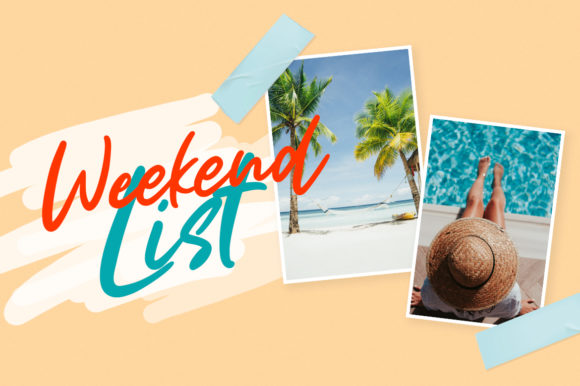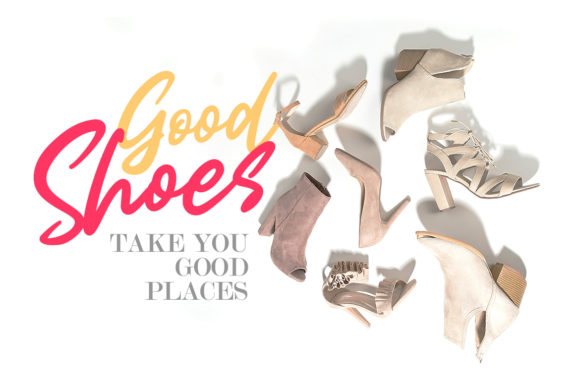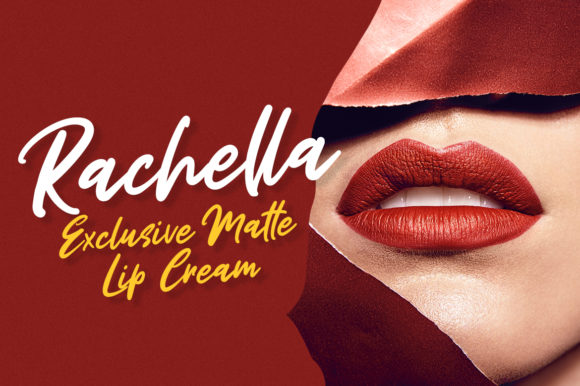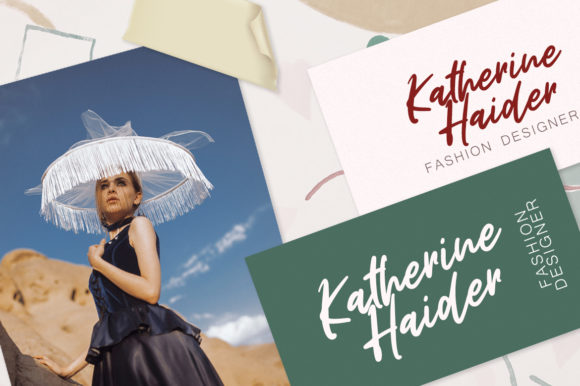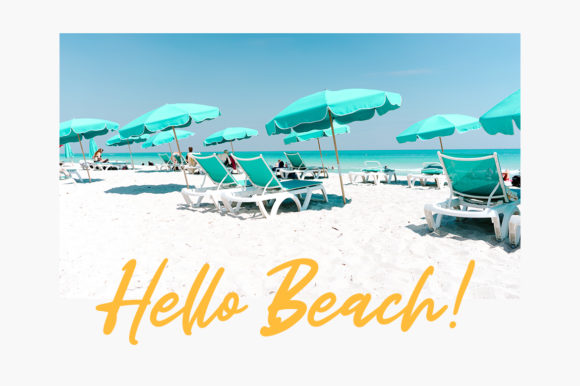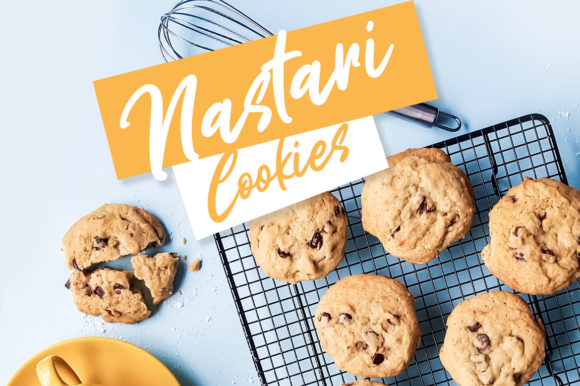
HomeScript FontsMiss Rhinetta Font Script Fonts Miss Rhinetta Font FacebookXPinterestWhatsApp Miss Rhinetta Font Poster 2 Miss Rhinetta Font Poster 3 Miss Rhinetta Font Poster 4 Miss Rhinetta Font Poster 5 Miss Rhinetta Font Poster 6 Miss Rhinetta Font Poster 7 About Miss Rhinetta Font Miss Rhinetta is a bold and funky script font, full of personality. Get inspired by its authentic charm! DOWNLOAD ON CREATIVE FABRICAThis font is sold and delivered by Creative Fabrica. Font Canyon may earn a commission if you buy through this link. People also explored The Sandwich Font Thankful Santa Font Arumi Twain Font Ruxtoni Modern Handwritten Font Blushring Font Bruno Ace Rounded Spiroy Golden Font Creative Monday Font Callways Script Font 321 0 TagsMiss Rhinetta Font Previous articleAmanise FontNext articleMadeline Font LEAVE A REPLY Cancel reply Comment: Please enter your comment! Name:* Please enter your name here Email:* You have entered an incorrect email address! Please enter your email address here Website: Save my name, email, and website in this browser for the next time I comment. Personal Use Free Groomer Personal Use Free Read more about this font Gardening Personal Use Free Read more about this font Alphakind Personal Use Free Read more about this font Quentin Personal Use Free Read more about this font BLOG Free vs Paid Fonts: Why Investing in Premium Fonts Is Worth It Free vs Paid Fonts: Why Premium Fonts Are Worth It in 2025 The debate of free vs paid fonts continues in the design world. While... Where to Buy American Fonts Online in 2024 Transform Your Website: Elevate Your Typography with 7 Best Web Font Generators Fonts That Capture the Spirit of New York City